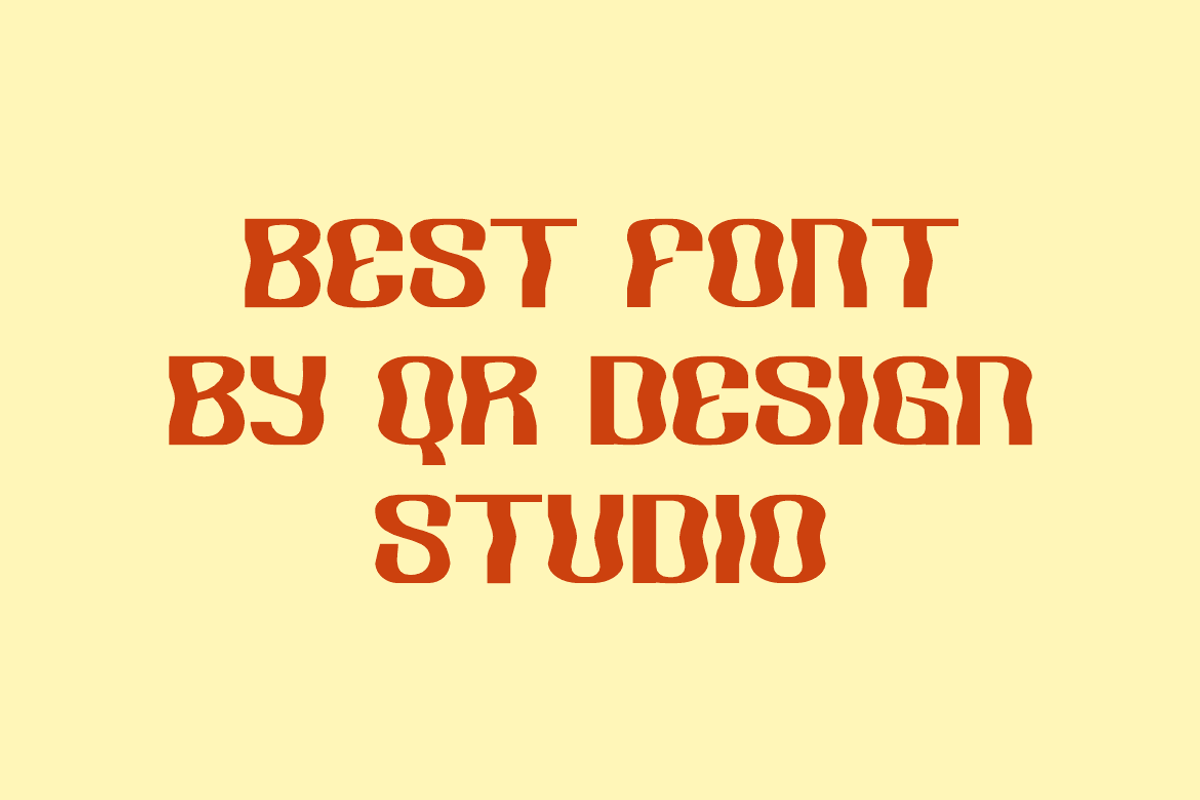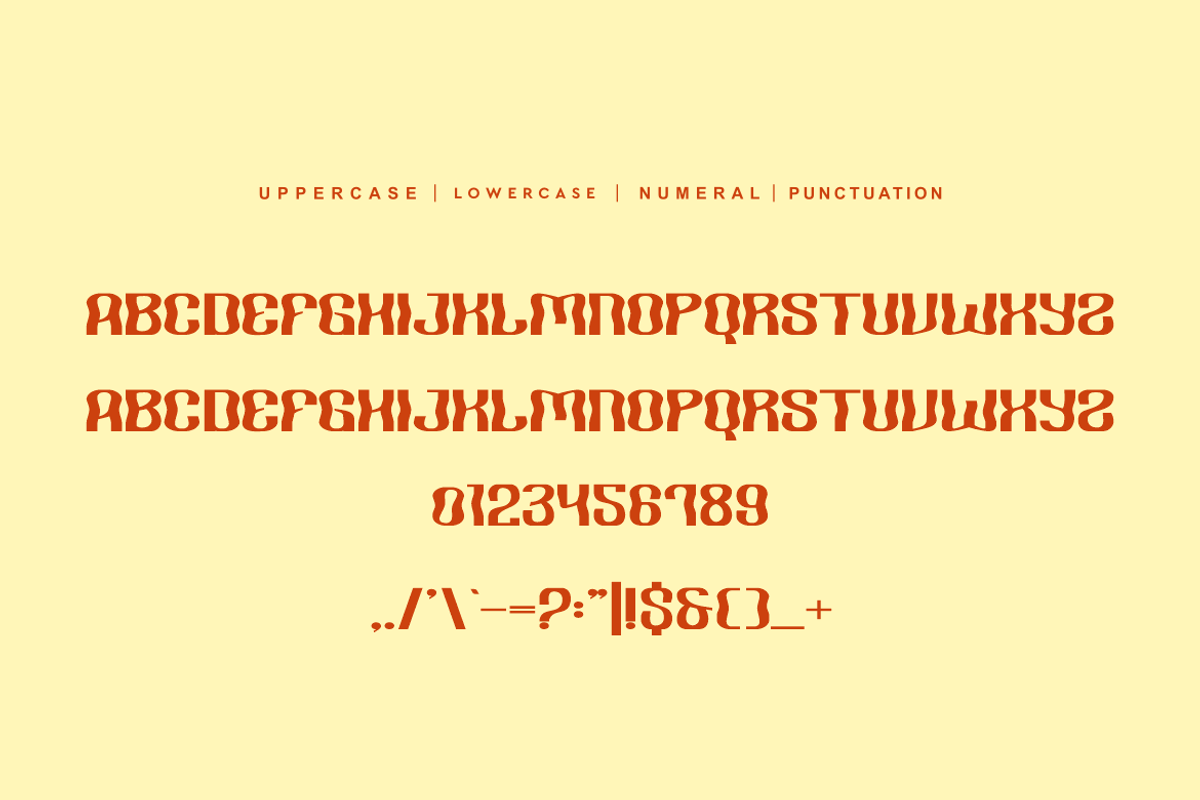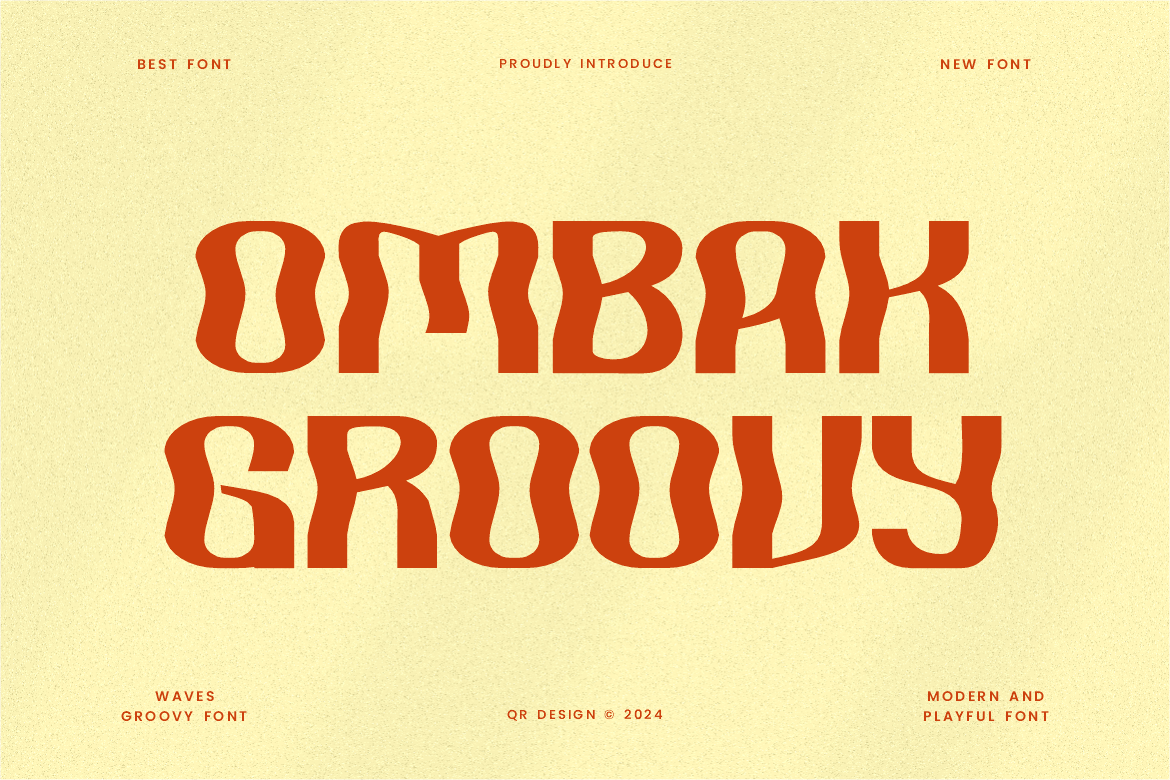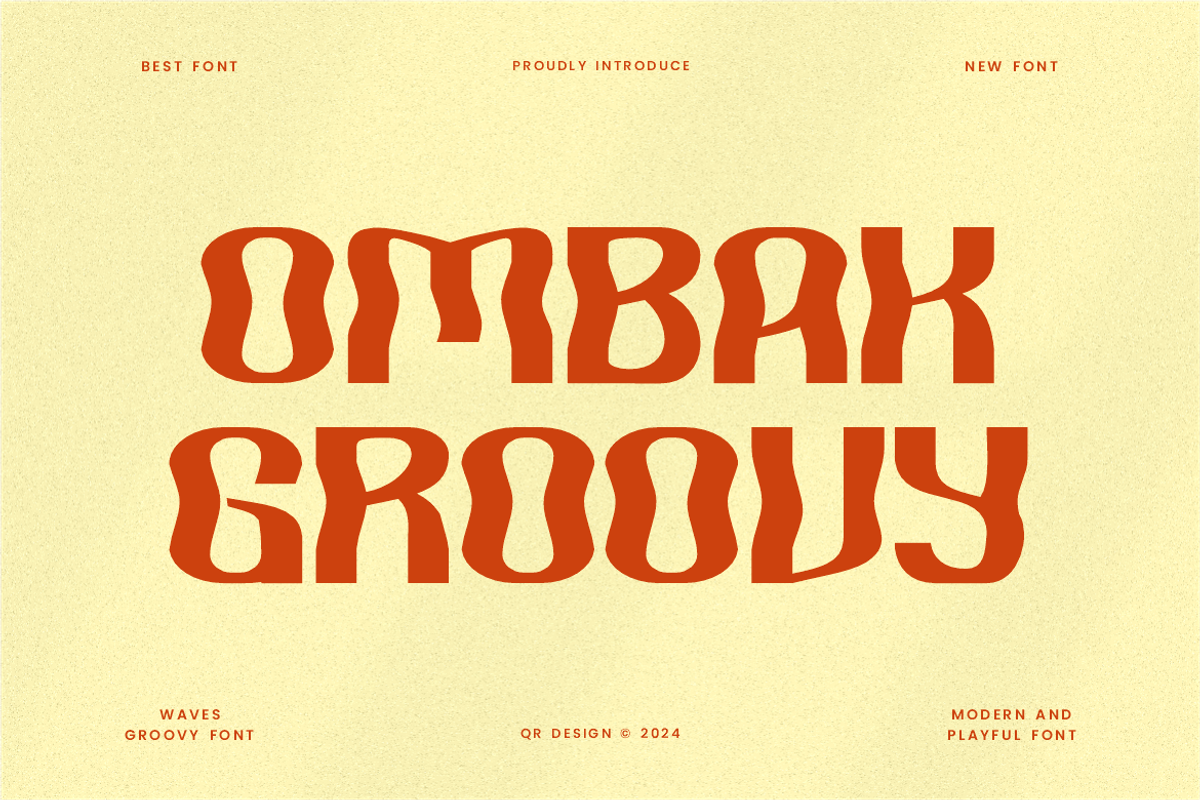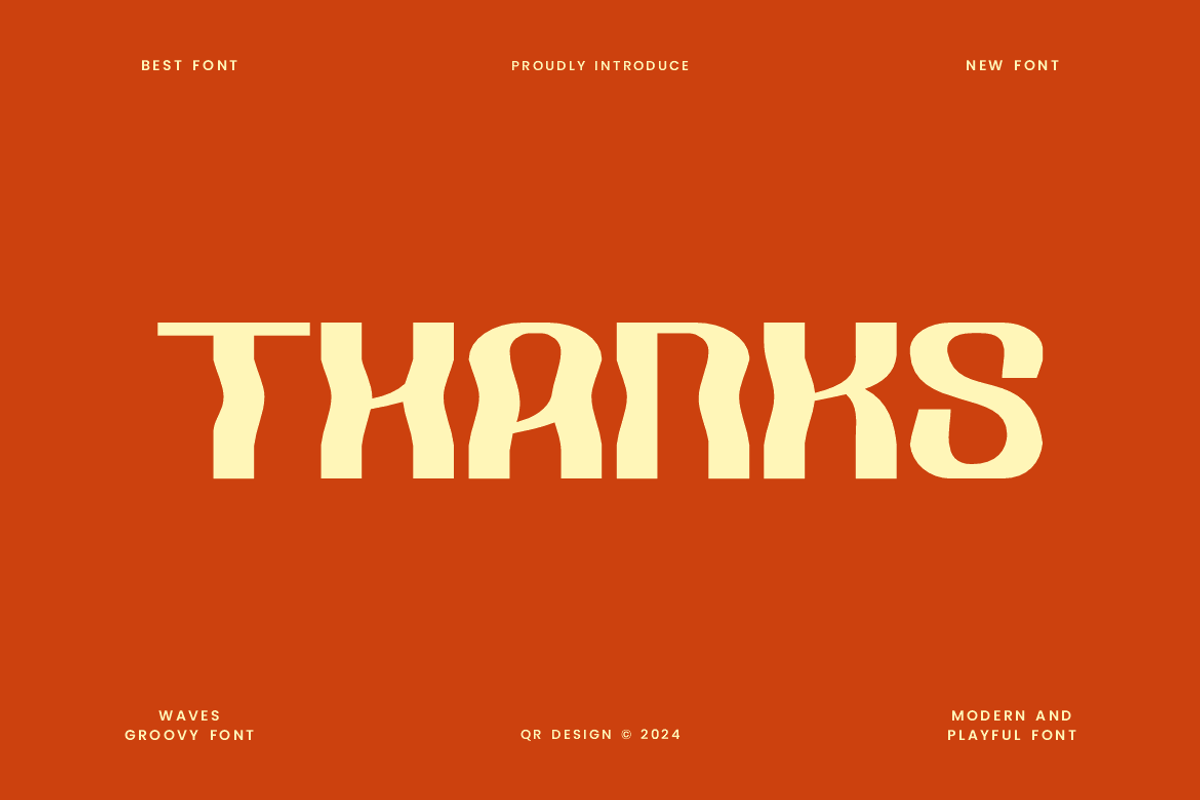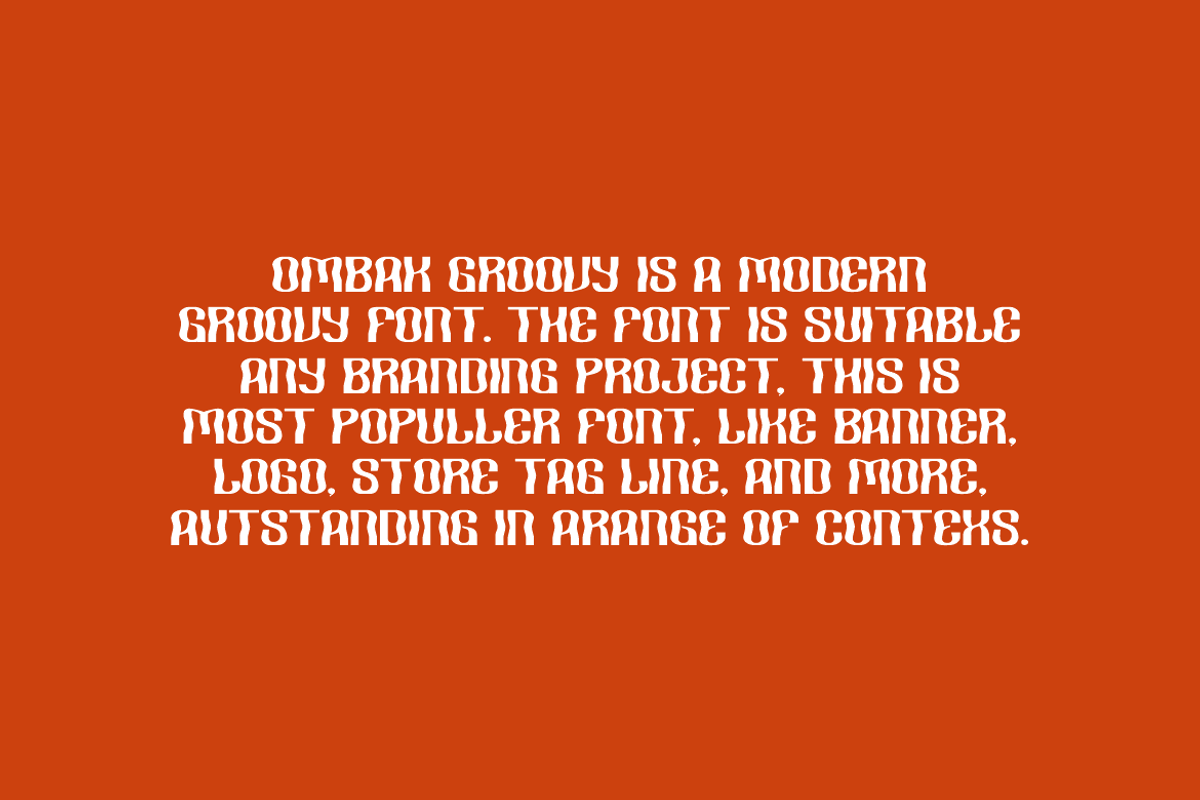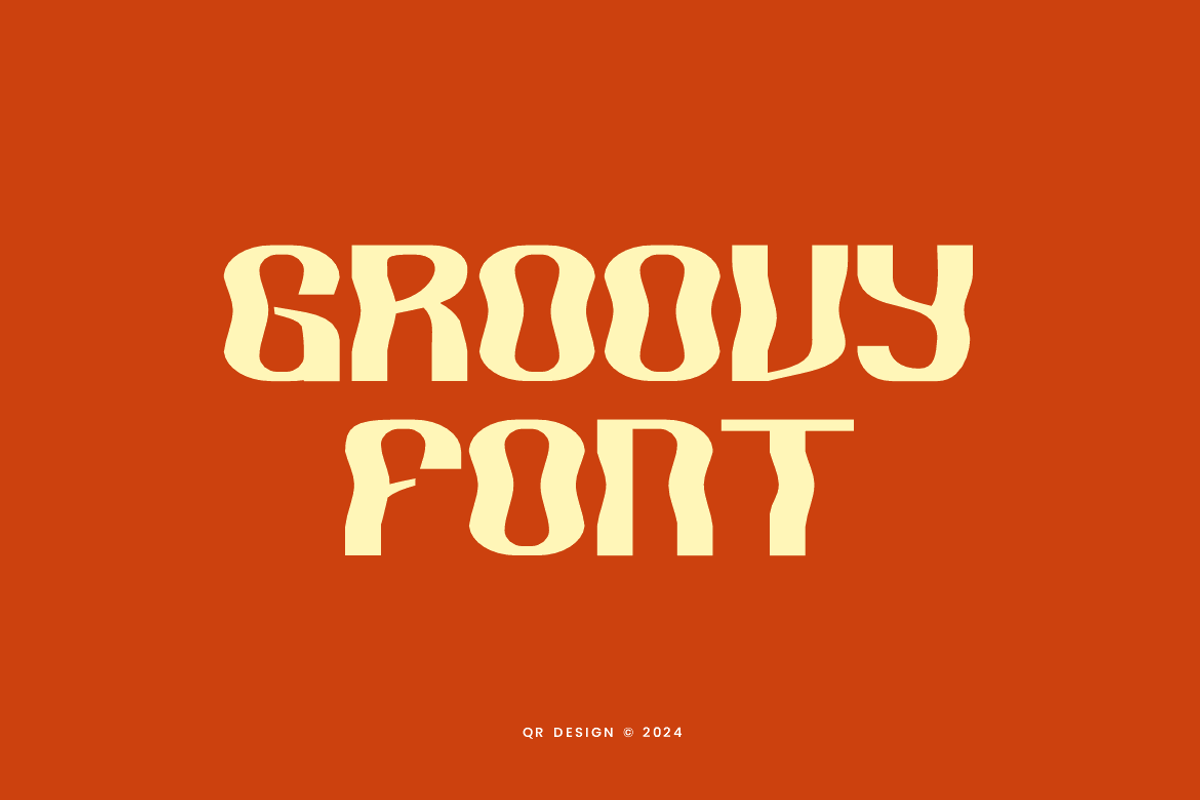
Ombak Groovy - Bubble & Liquid Font
Ombak Groovy Font is a bold and authentic display font. The font is suitable for any branding project like poster, logo, sport, and many more. Outstanding in a wide range of contexts.